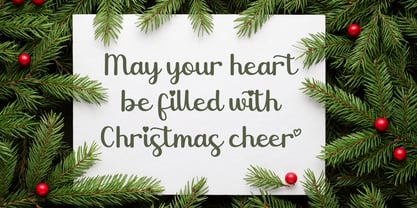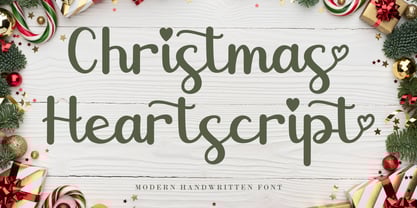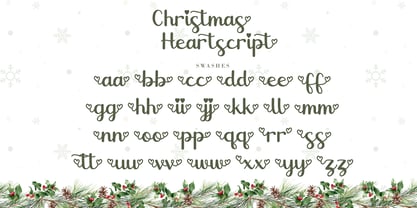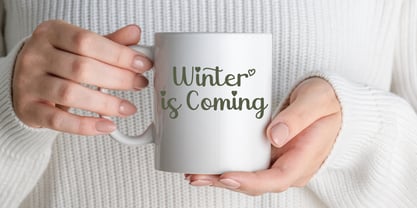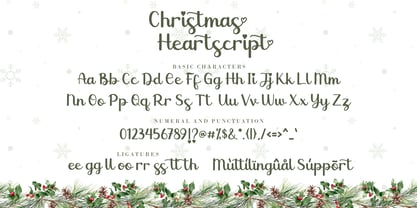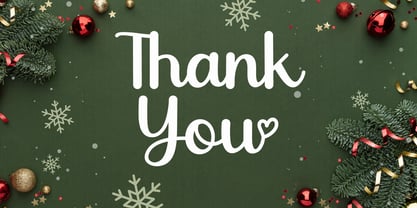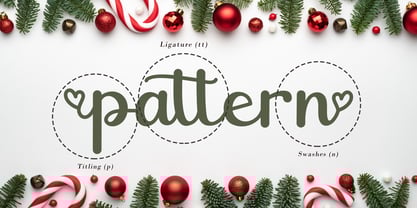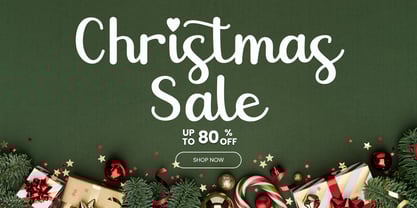
Christmas Heartscript
by AEN Creative Studio
The Christmas Heartscript Font Family was designed by Agung Eko Nugroho and published by AEN Creative Studio. Christmas Heartscript contains 2 styles and family package options. More about this family
Christmas Heartscript is a joyful handwritten font filled with love and festive cheer. Its elegant yet playful strokes create a natural handwritten feel, while the signature heart dots on i and j bring a romantic twist that makes it stand out. This font is perfect for Christmas crafts, DIY tags, mugs, social media posts, invitations, or any design that deserves a heartfelt look. Imagine writing your warmest wishes with a pen of love — that’s the feeling Christmas Heartscript delivers. It’s not just a font; it’s a celebration of cozy winter nights, glittering lights, and the simple joy of giving.
Designers: Agung Eko Nugroho
Foundry: AEN Creative Studio